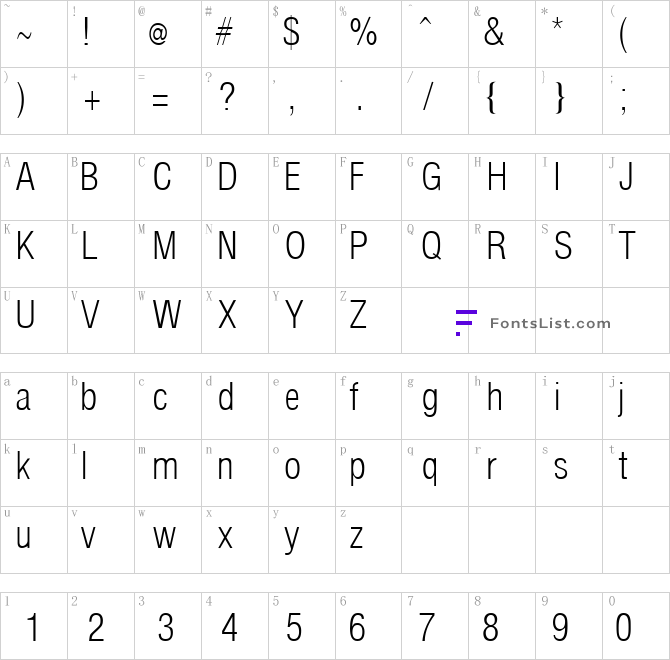
ArenaCondensedLight-Regular-copy-1-.ttf is a very beautiful artistic font, ArenaCondensedLight-Regular-copy-1-.ttf is widely used in the design and printing of various books and pictures,ArenaCondensedLight-Regular-copy-1-.ttf has a strong visual impact,ArenaCondensedLight-Regular-copy-1-.ttf is a commonly used font in newspapers, magazines and books, and is used in posters, e-commerce Poster design, store design, logo design, font design and other fields.ArenaCondensedLight-Regular-copy-1-.